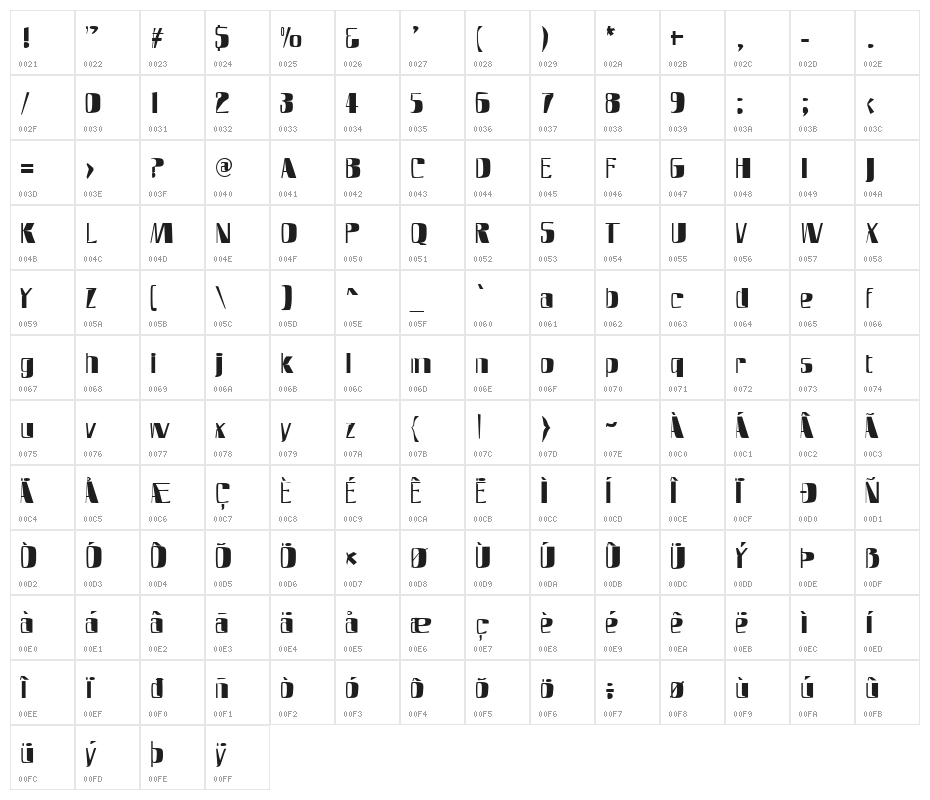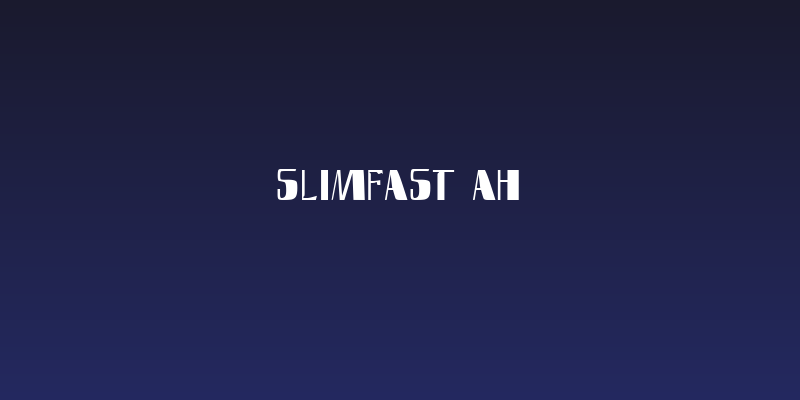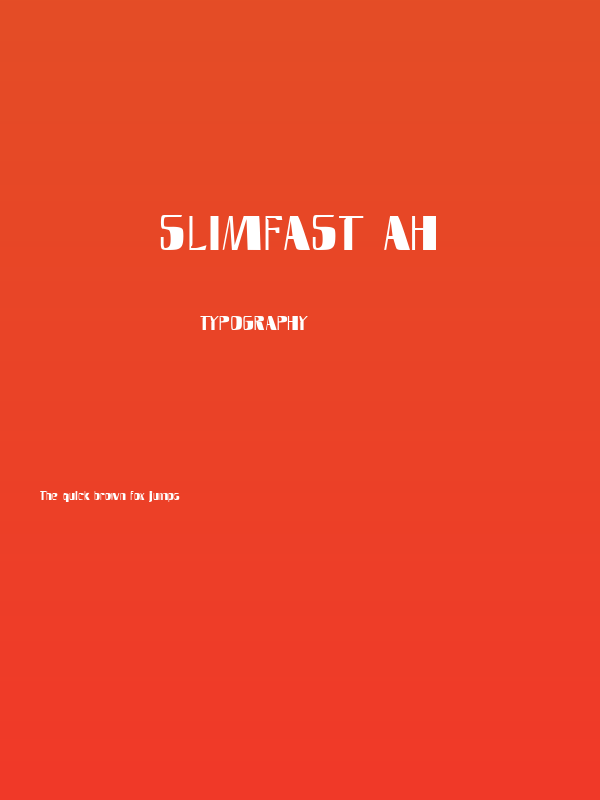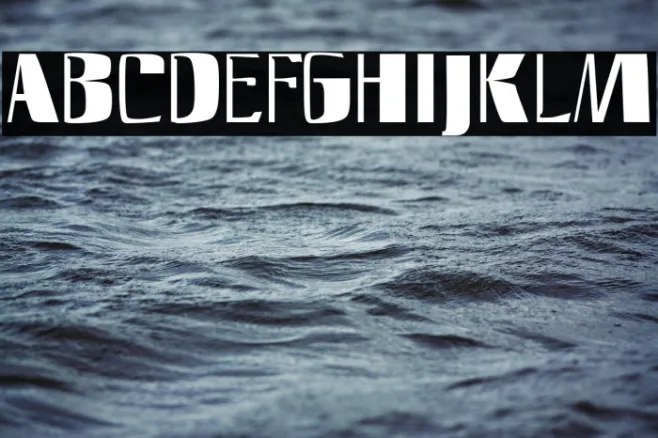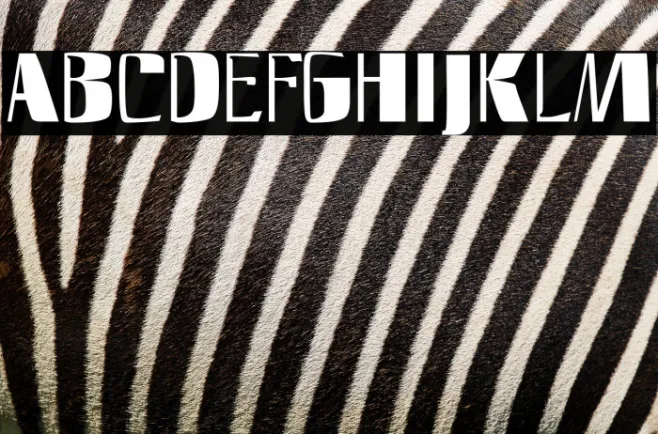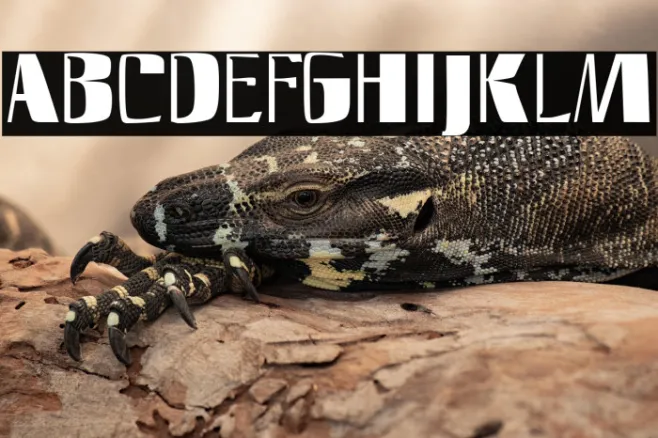
SlimFast AH Font
SlimFast AH Description
This font features a bold and dynamic style with a modern twist. The uppercase letters are characterized by their thick, block-like appearance with sharp angles and unique cuts, giving them a striking presence. The lowercase letters maintain a similar boldness but with a slightly more rounded and approachable feel. The numerals are consistent with the overall bold aesthetic, ensuring readability while maintaining a distinctive look. Special characters are designed with the same bold and angular style, adding to the font's cohesive appearance. This font is ideal for making a strong visual impact.